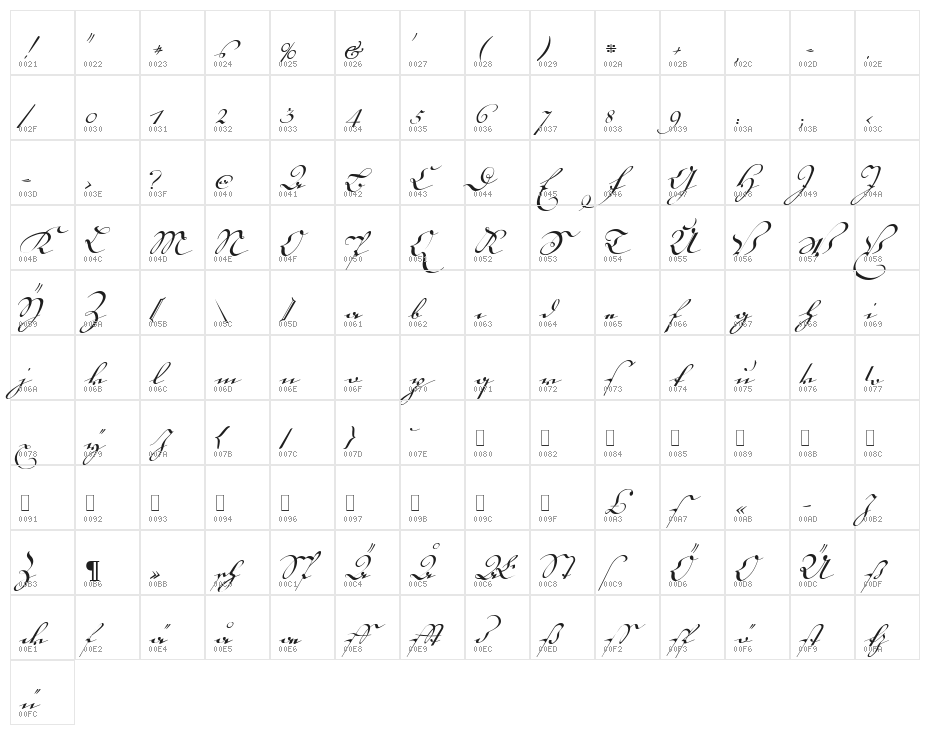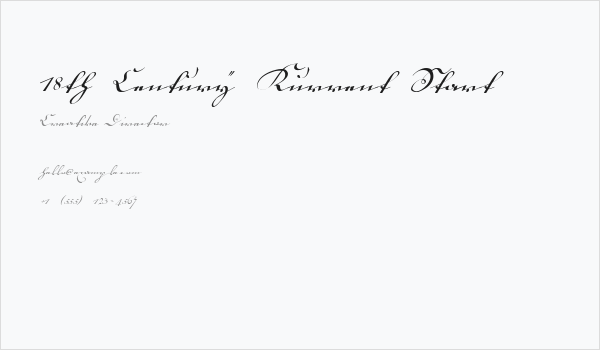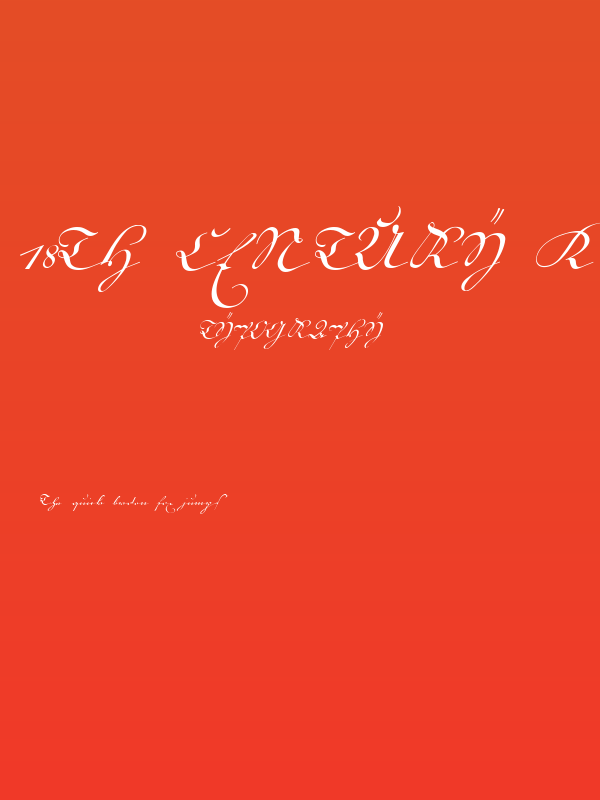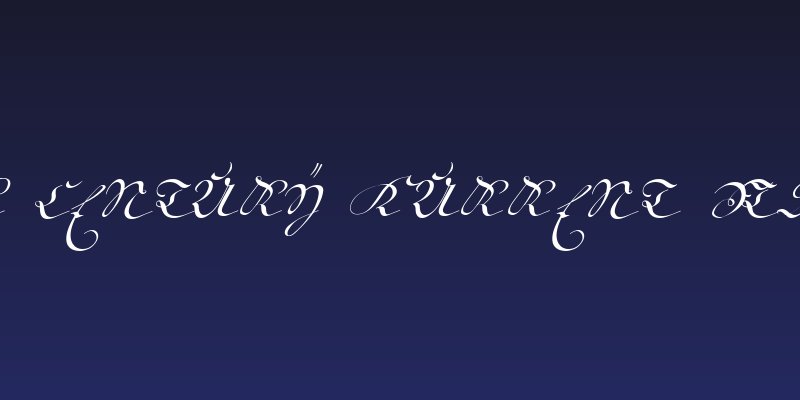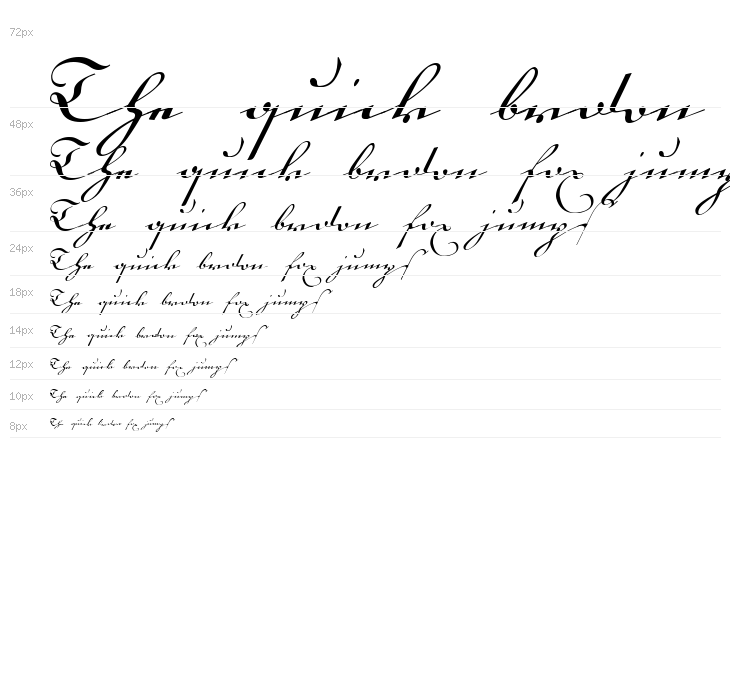
18th Century Kurrent Start Font
18th Century Kurrent Start Description
This font exudes an elegant and historical charm, reminiscent of 18th-century script styles. It features intricate, flowing strokes with high contrast between thick and thin lines, creating a dramatic and sophisticated appearance. The characters are highly stylized, with ornate loops and flourishes that add a sense of movement and grace. The uppercase letters are particularly elaborate, while the lowercase letters maintain a consistent fluidity. The numbers and special characters are designed to match the overall aesthetic, ensuring a cohesive look across all text elements.